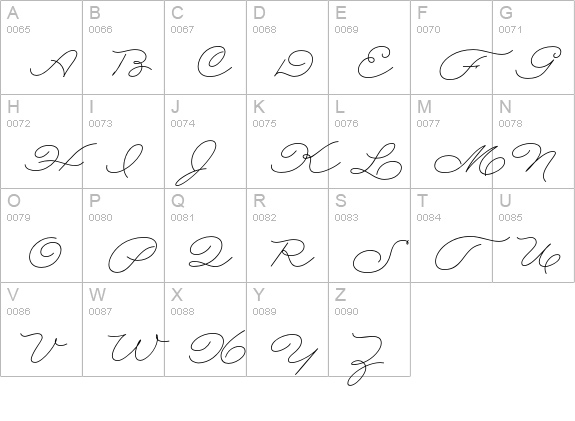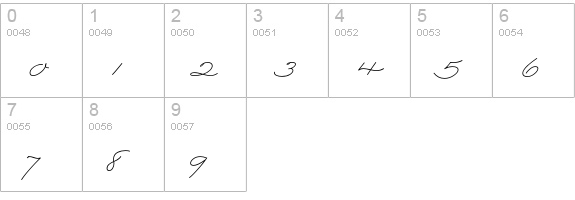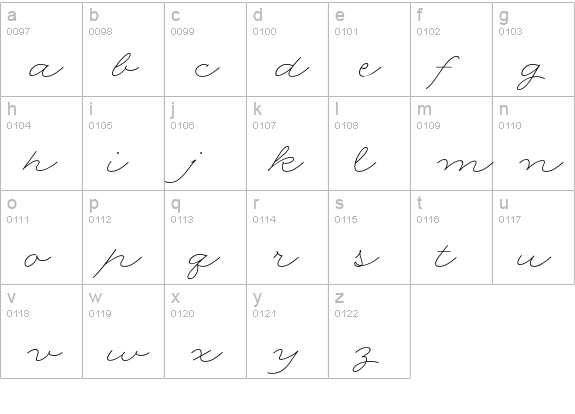
Introducing the exquisite Rolling Pen Complete font, a versatile and modern typeface that embodies elegance and creativity. This font is perfect for a wide range of design projects, from branding to invitations, posters, and more. Featuring a unique and stylish handwritten style, Rolling Pen Complete adds a touch of sophistication to any design. What sets Rolling Pen Complete apart is its seamless flow and smooth lines, making it a joy to work with for both professionals and beginners. The font exudes a sense of charm and personality, making it ideal for adding a personal touch to your projects. Best of all, Rolling Pen Complete is available for free download at FontsMarket.com, allowing you to access this stunning font without any cost. Don't miss out on this opportunity to enhance your designs with the beauty and versatility of Rolling Pen Complete. Download it today and elevate your creative projects to new heights.